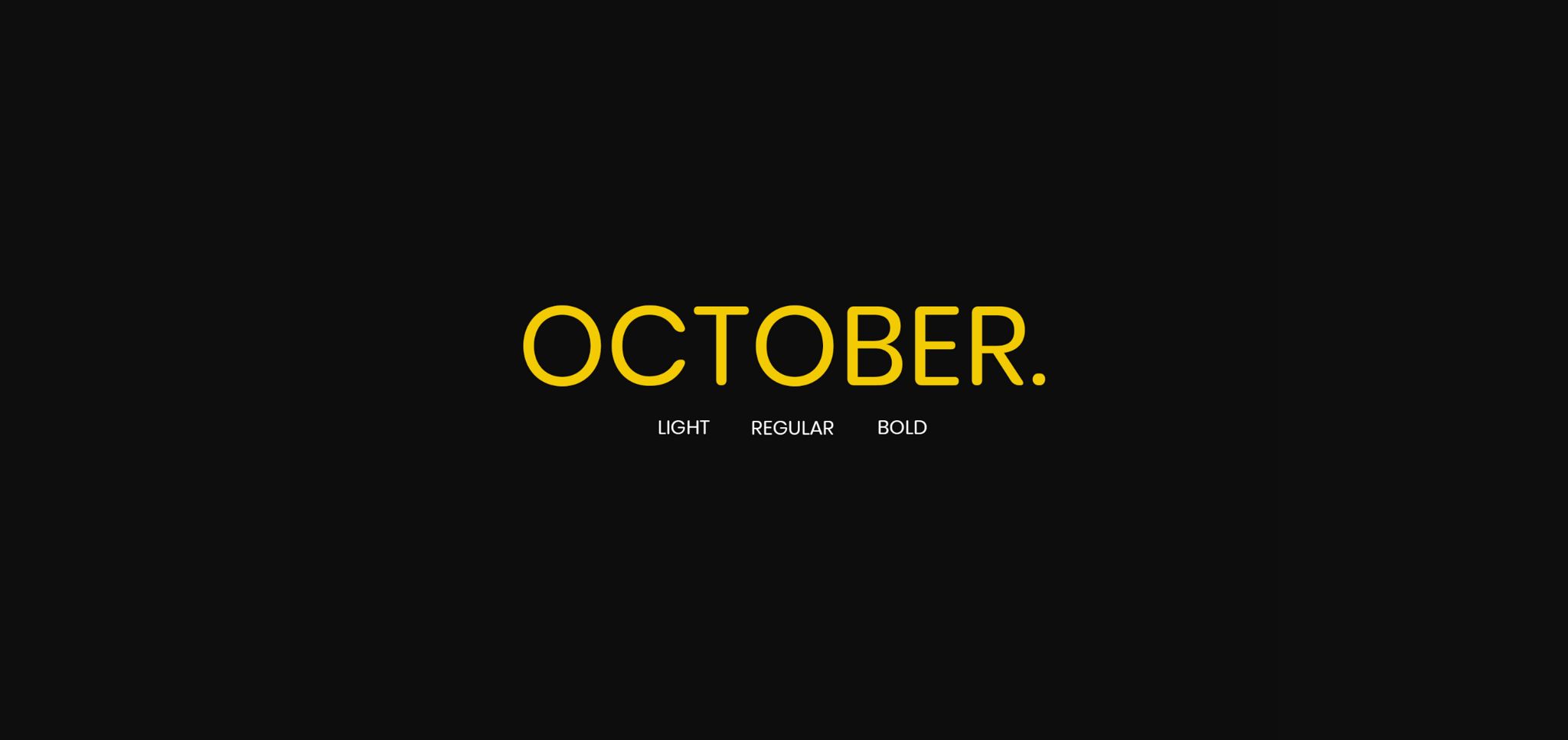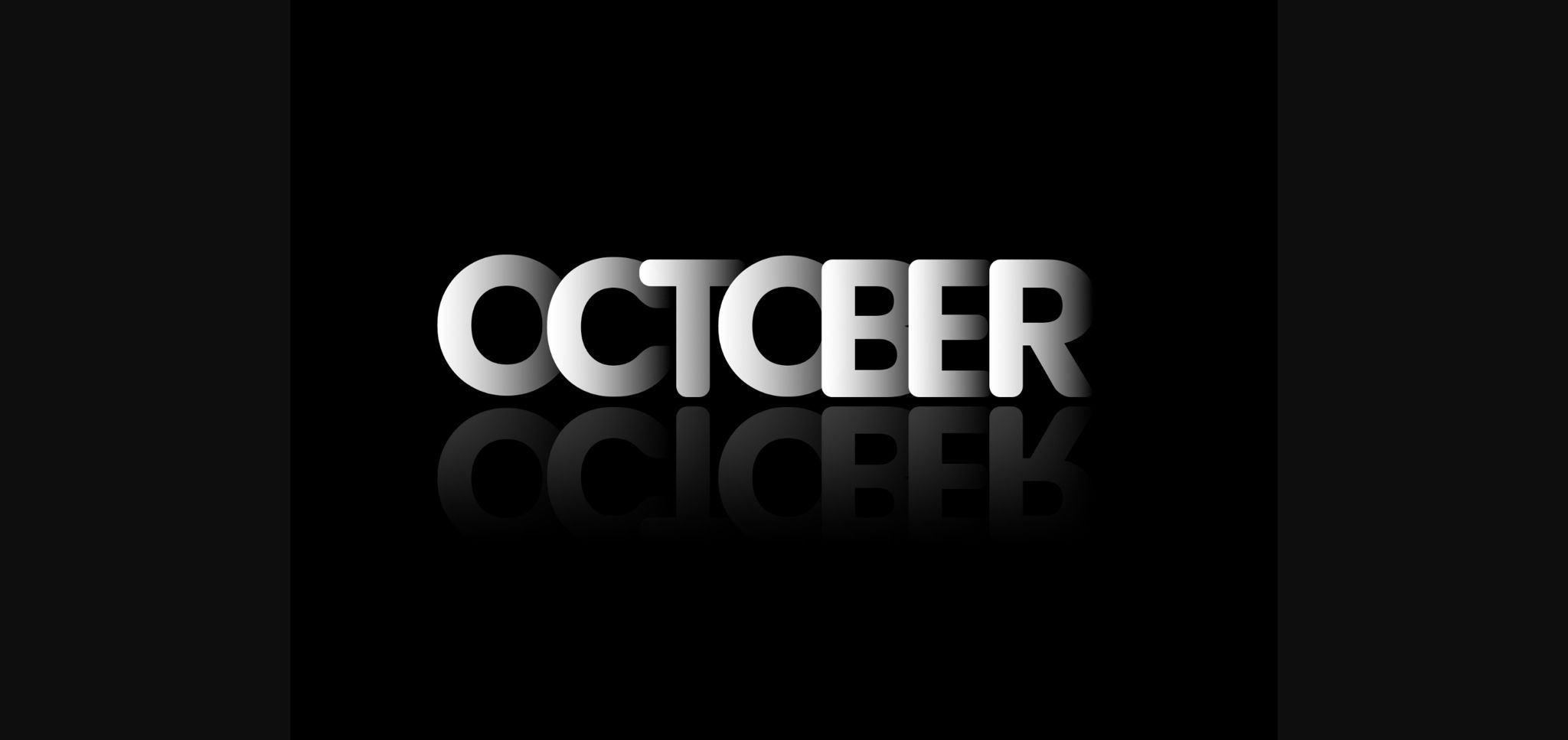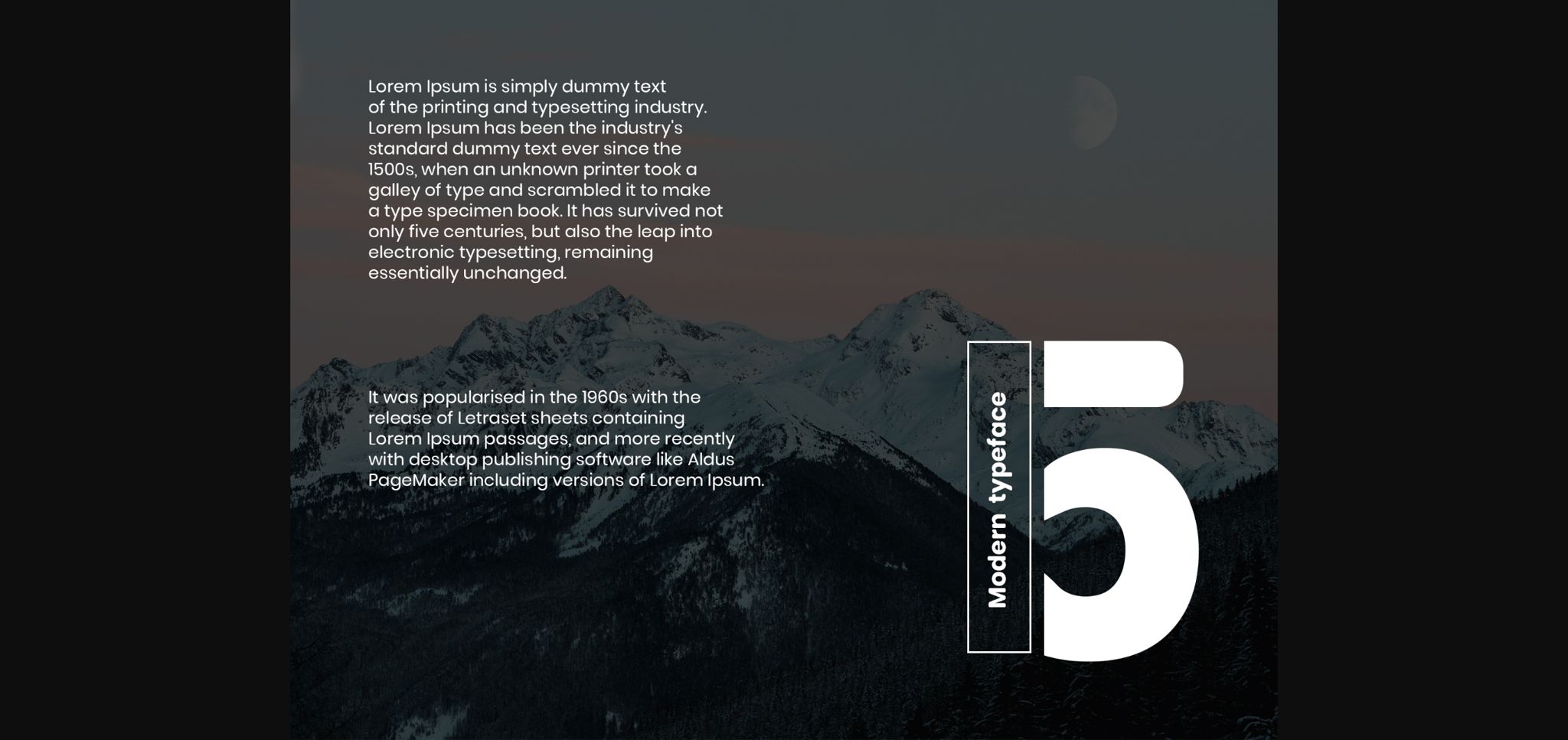
About October Font
October is a minimal and neat sans serif font. It can easily be matched to an incredibly large set of projects, so add it to your creative ideas and notice how it makes them stand out!